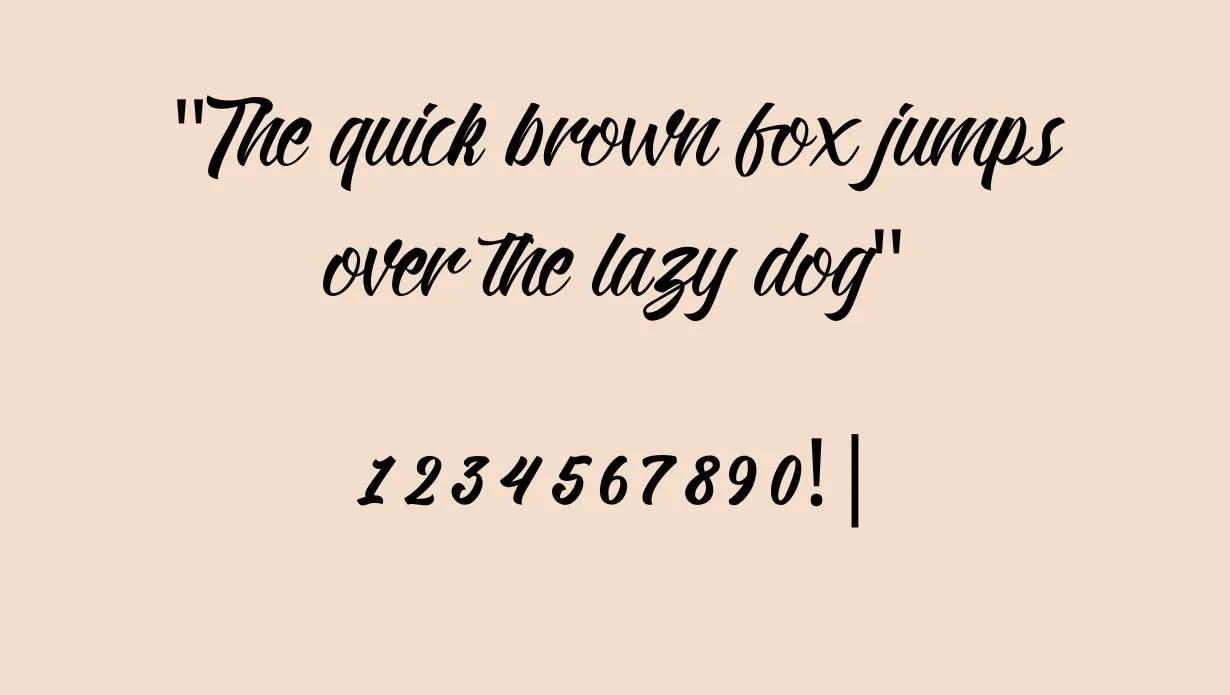
Kadisoka font is like an artistic brushstroke, adding creativity to your words. It’s perfect for projects that need an artistic touch.
Whether you’re making a poster for an art exhibition or content that celebrates creativity, Kadisoka turns your text into a visual masterpiece. Each letter is like a stroke of inspiration, adding an artistic flair to your message.